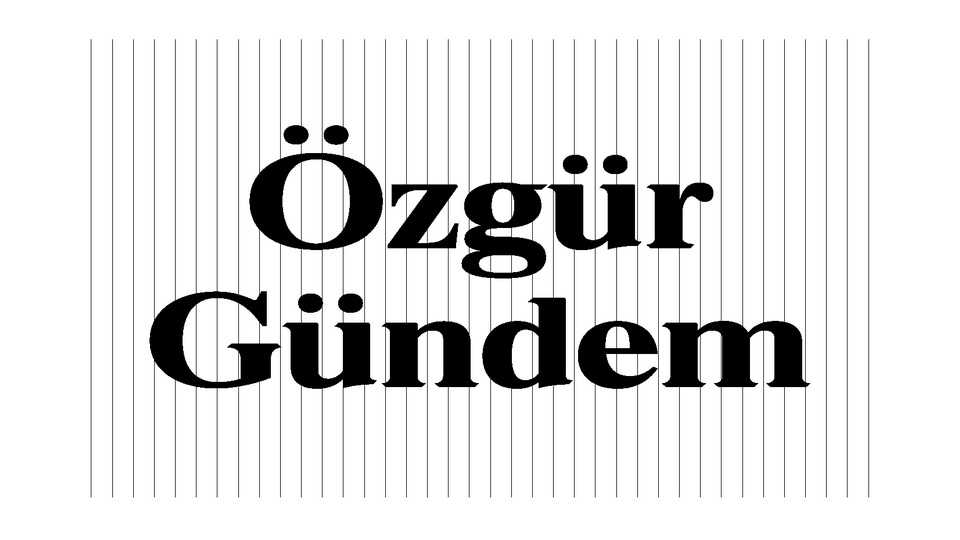
Download Özgür Gündem font, a serif typeface recreated from the font of Hungarian newspaper closed in 2016, part of the Fonts for Freedom project.
Designer: FONTS FOR FREEDOM